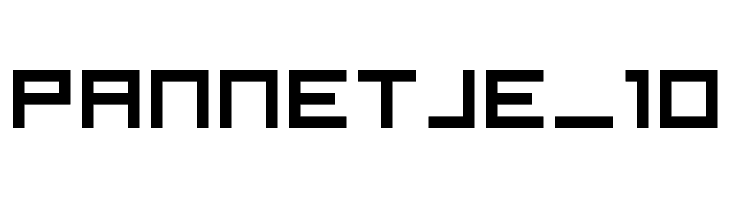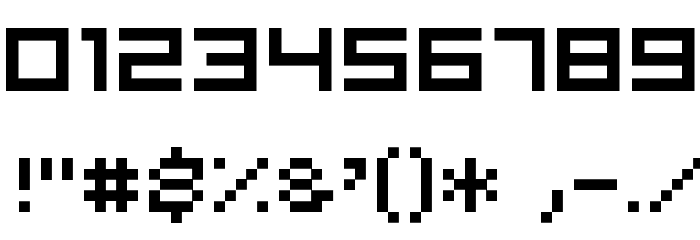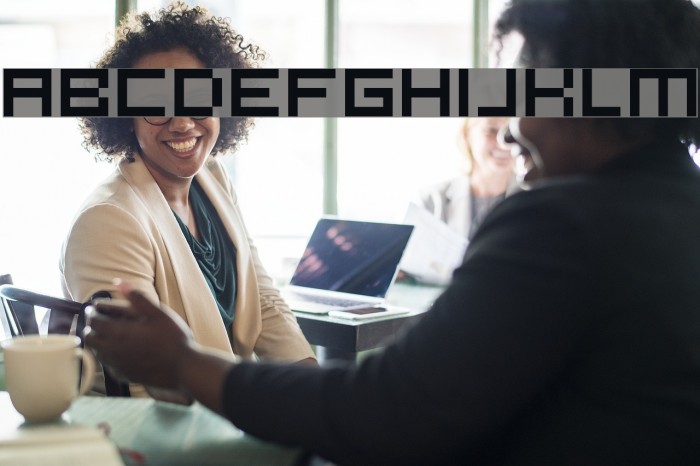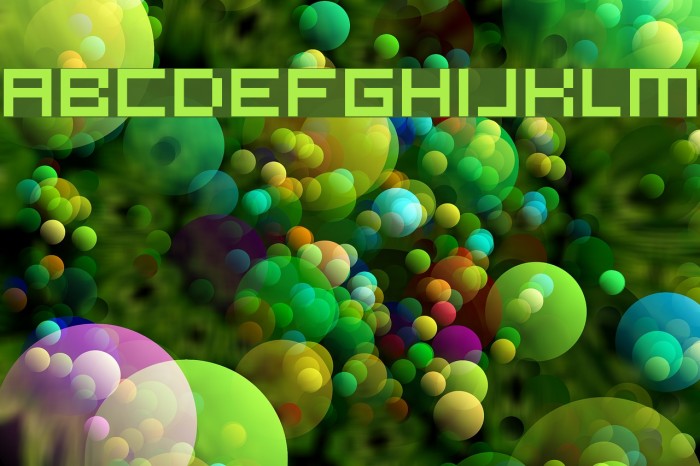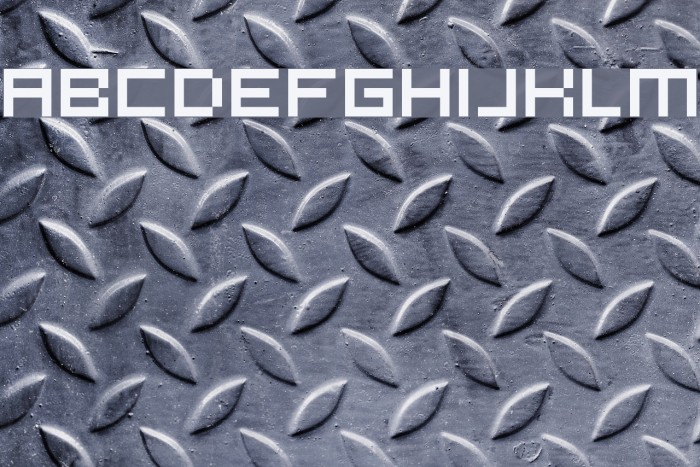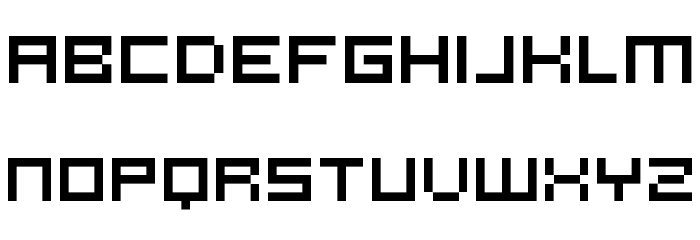
pannetje_10 Font
pannetje_10 Description
This font features a bold, geometric design with a distinctly modern and digital aesthetic. Each character is constructed with sharp, angular lines and a consistent stroke width, giving it a blocky and pixelated appearance reminiscent of early digital displays or video games. The uppercase and lowercase letters maintain a uniform height, contributing to a monospaced feel, although the font is not strictly monospaced. The numerals and special characters follow the same design principles, ensuring a cohesive look across all glyphs. This font's style is both futuristic and retro, making it versatile for various creative applications.
A bold, geometric font with a digital, pixelated style from Pixel fonts.
- Proposed Projects: Ideal for digital art, video game design, tech branding, and retro-themed projects.
- Use Case: Headlines, Logos, Digital displays